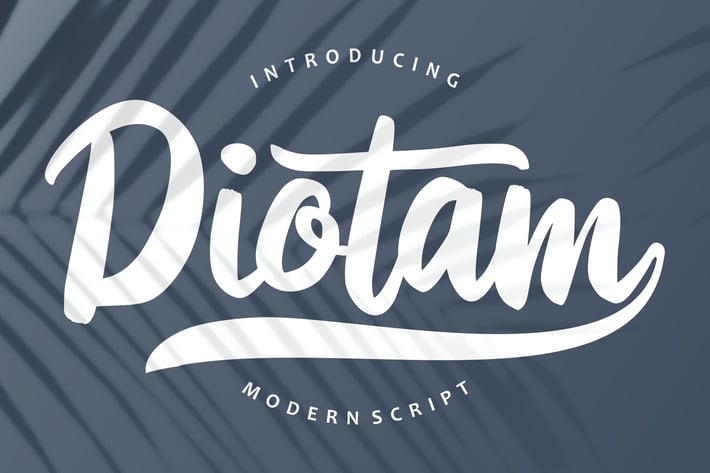
Diotam | Modern Script Font
Diotam | Modern Script Font with a calligraphy style, So beautiful on invitation like greeting cards, branding materials, business cards, quotes, posters, and more!